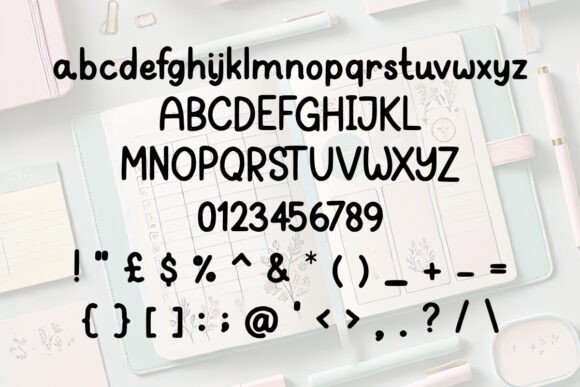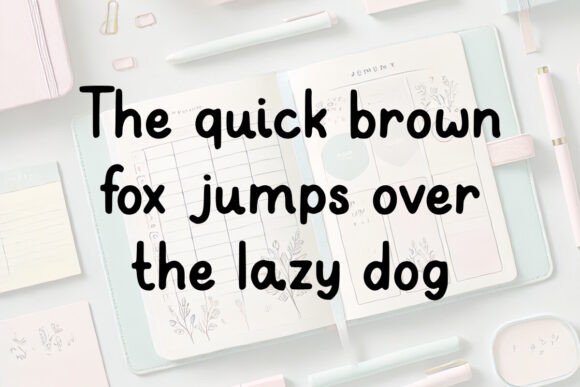
Introduction to Planner Girl Font
Meet Planner Girl, the ultimate handwriting font for creating beautiful and organised designs.
With its soft, clean, and approachable style, Planner Girl mimics the look of natural handwriting, making it perfect for planners, journals, and printable mockups Its simple elegance ensures every project feels personal and polished.
Key Features of Planner Girl Font
Why Choose Planner Girl Font?
Planner Girl Font offers exceptional quality and versatility, making it a valuable addition to your design toolkit. Whether you’re creating for personal projects or commercial use, Planner Girl Font delivers professional results.